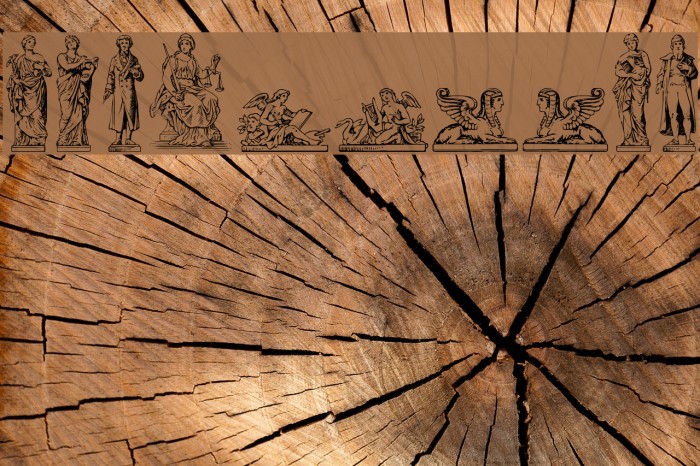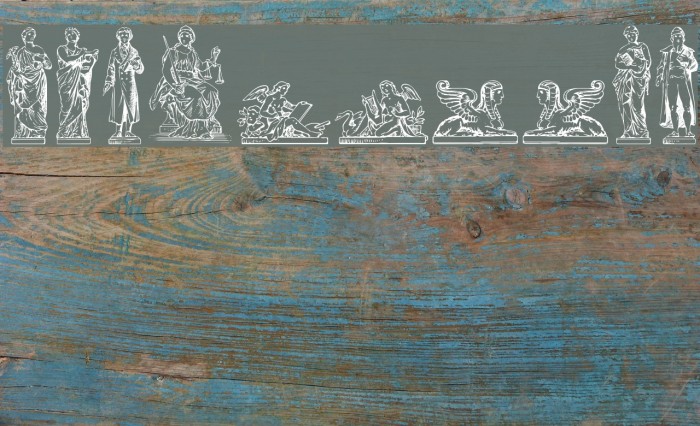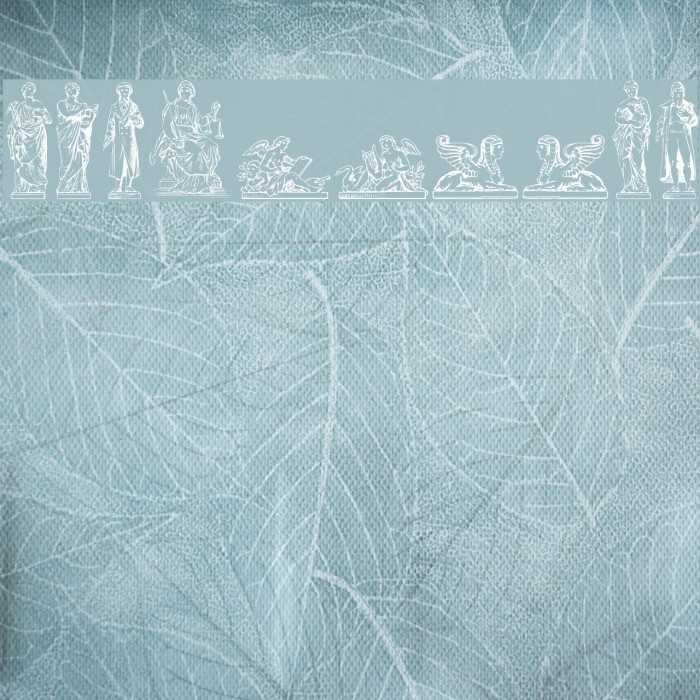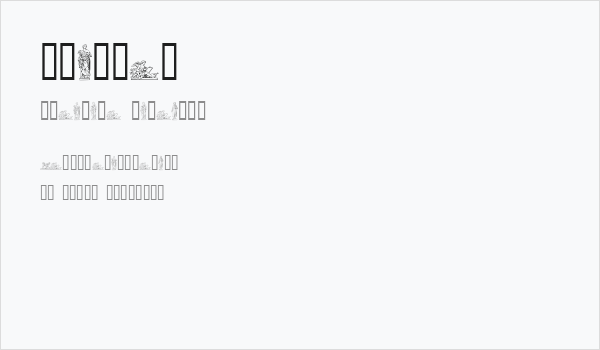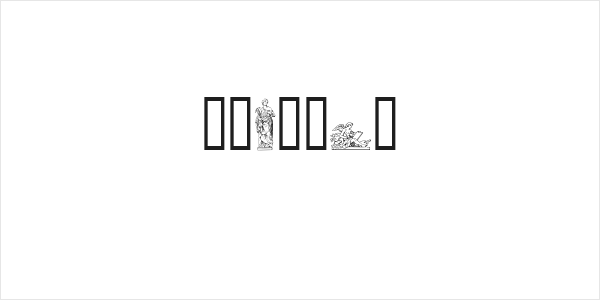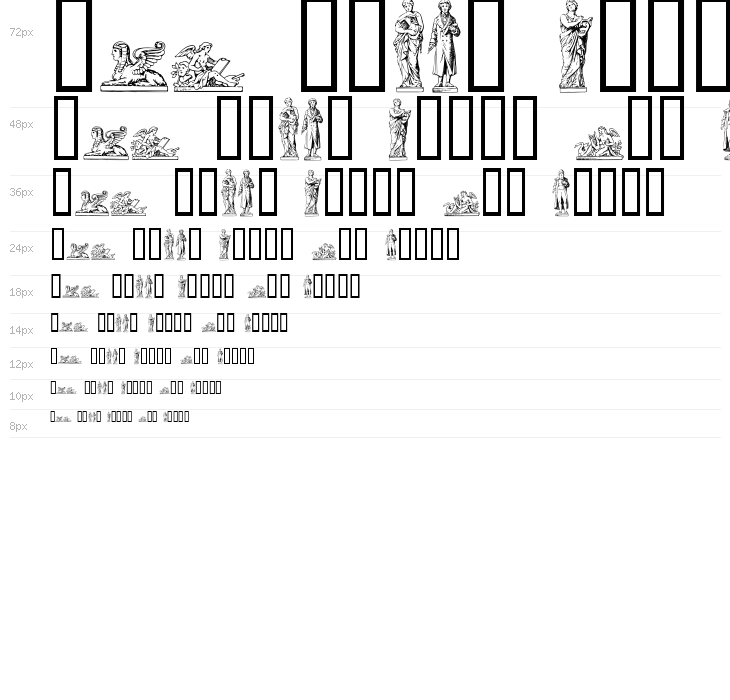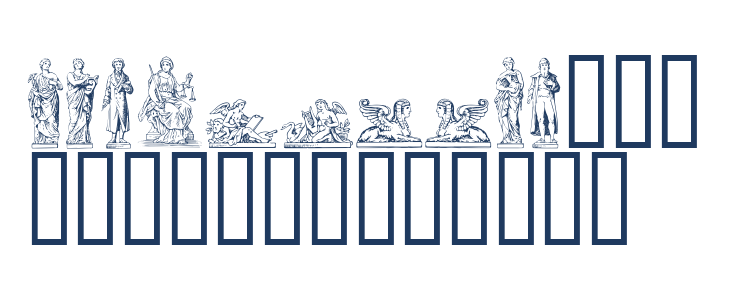
Statuer Font
Statuer Description
A highly decorative font composed of detailed illustrations of classical statues and sculptures, each character represented by a unique figure or scene, evoking a sense of antiquity and artistry.
| Overall Style | Decorative, Vintage, Artistic |
| Use Case | Logos, Headlines, Posters, Thematic branding |
| Proposed Projects | Art posters, museum branding, historical book covers, decorative headings, educational materials. |